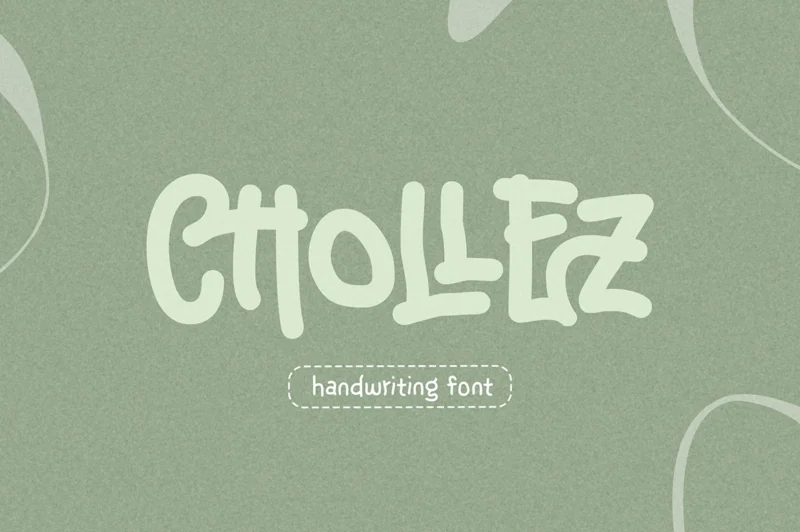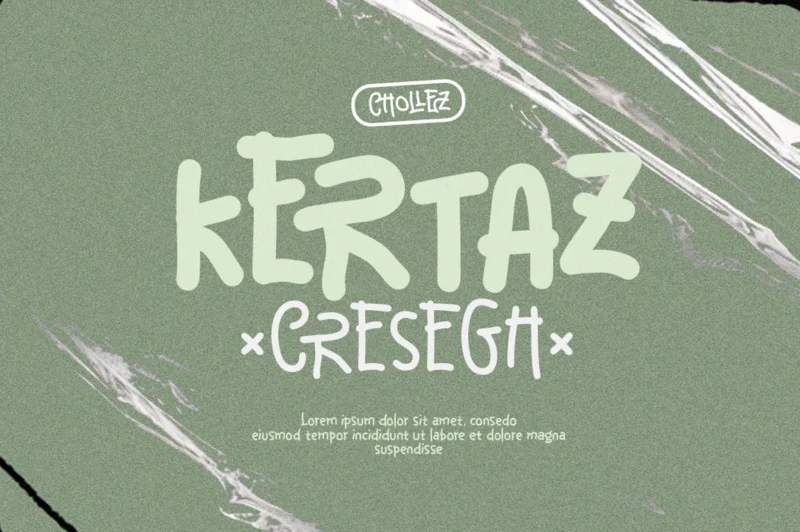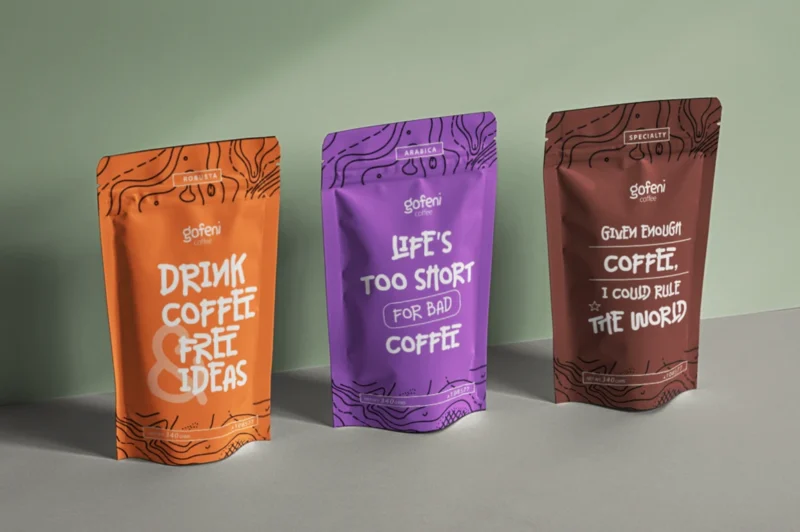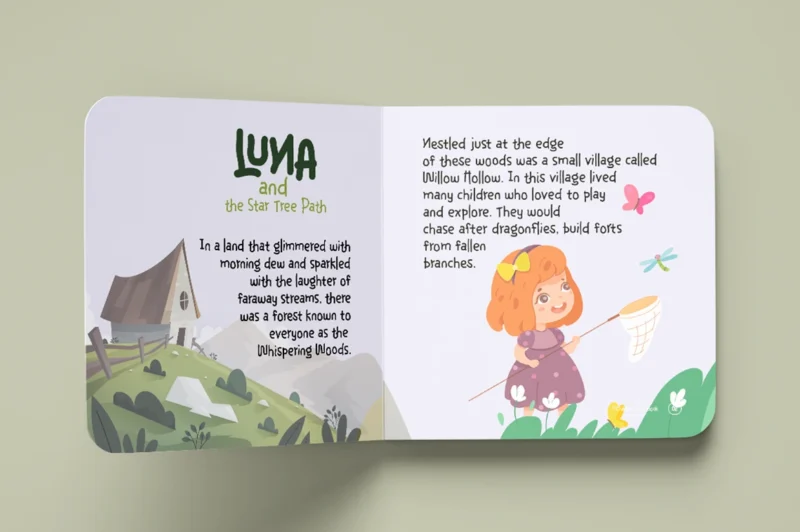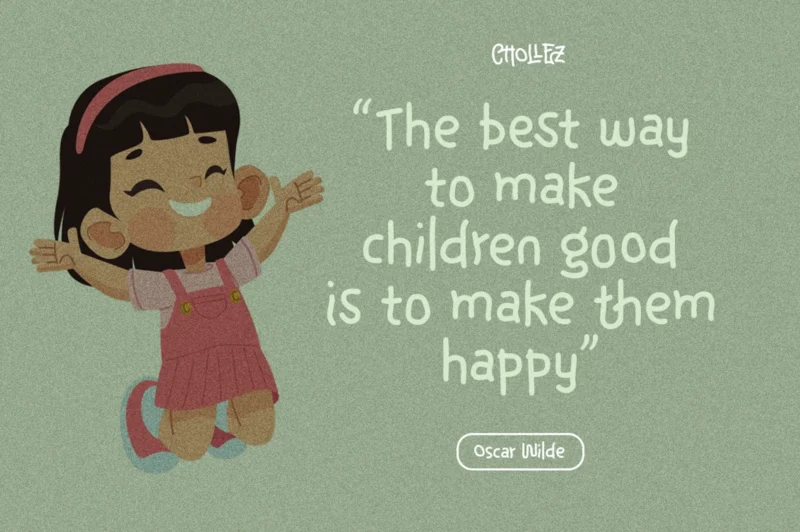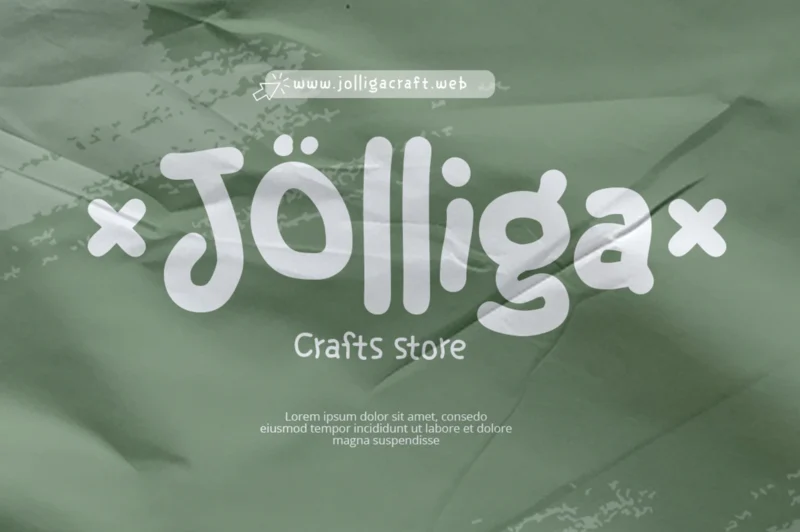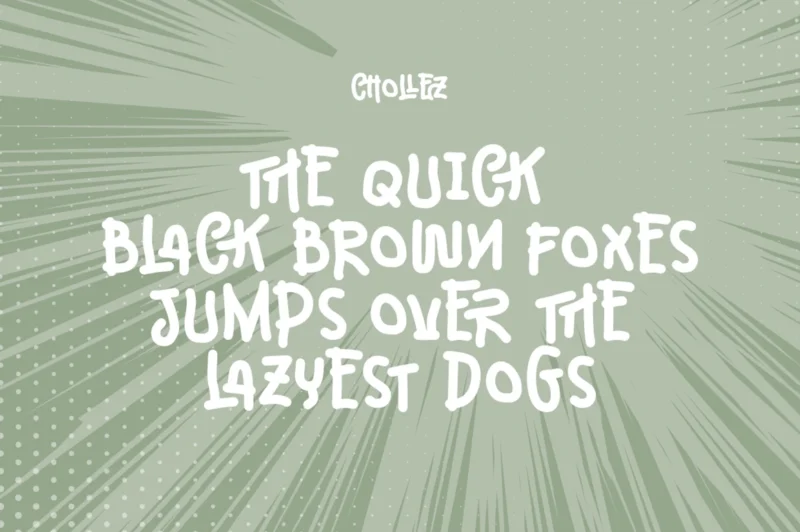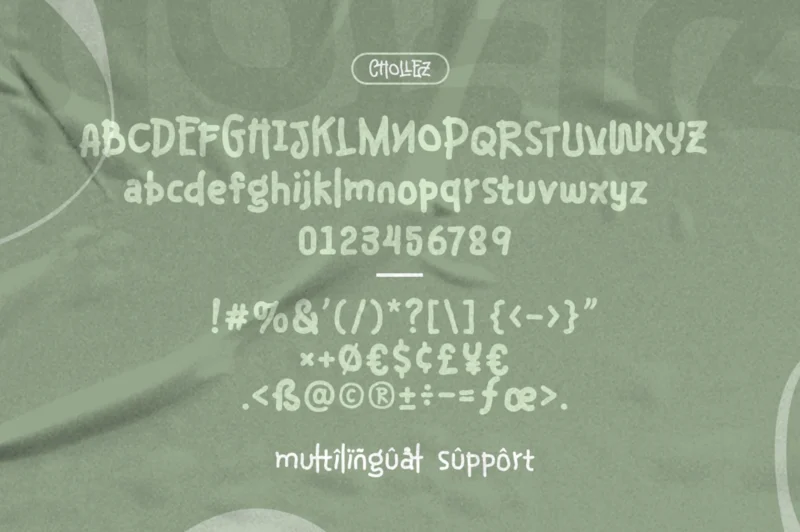
Chollez is a versatile and modern handwriting font that brings a playful and cheerful touch to any design. With its friendly curves and natural handwritten feel, Chollez is perfect for branding, kid-themed projects, creative headers, or editorial layouts that need a lively personality. This font comes in two styles, Regular and Light, giving you flexibility to adapt it for different moods and design needs. To add even more character, Chollez is equipped with unique ligature pairs that make your typography look natural and engaging.
- Playful Handwriting
- Regular & Light
- Basic Latin Glyphs
- Unique Ligatures Pairs
- Numeral and Punctuation
- Currencies
- Multilingual Support